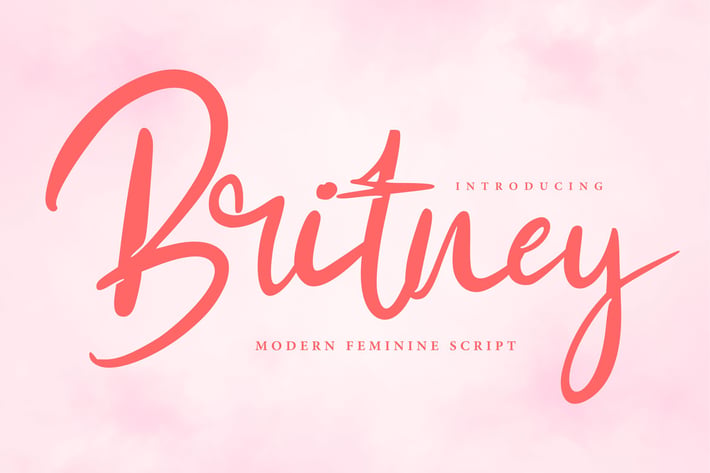
Britney | Modern Script Font
Britney | Modern Script Font with a calligraphy style, So beautiful on invitation like greeting cards, branding materials, business cards, quotes, posters, and more!